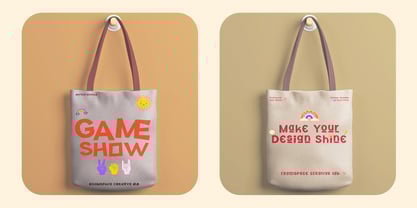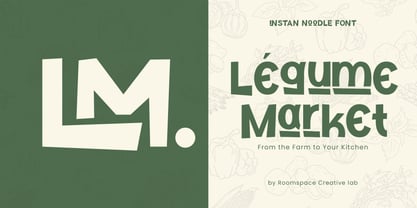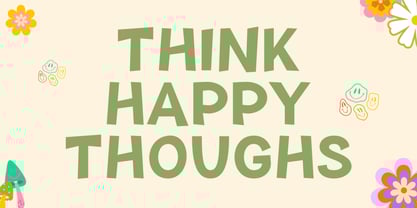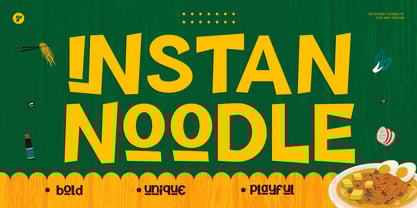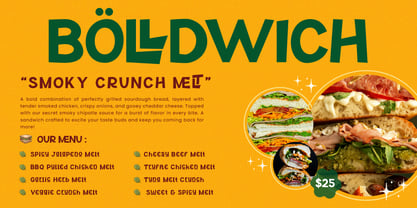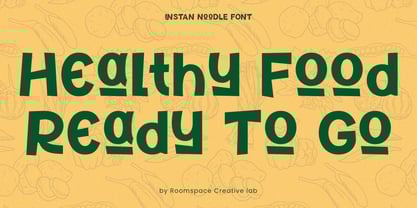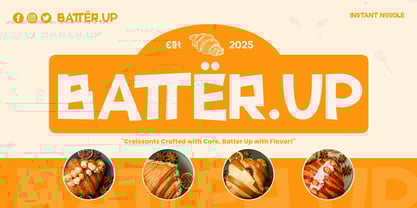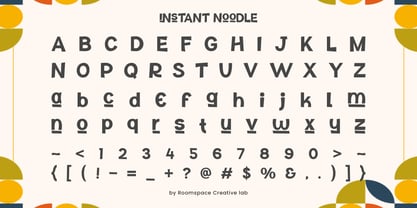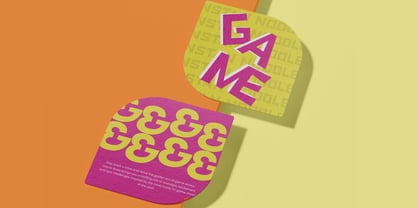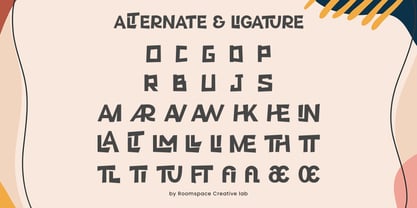
Yellow Ramen
por Jafar07
La familia tipográfica Yellow Ramen fue diseñada por Bakhrudin Ja'far y publicada por Jafar07. Yellow Ramen contiene 2 estilos y opciones de paquete familiar. Más información sobre esta familia
Yellow Ramen is a modern decorative font that combines playfulness with bold creativity. Perfectly hand-drawn with a quirky and unique style, this font captures a fun, vibrant aesthetic that's ideal for adding personality to your designs. Whether you're creating for branding, logos, websites, or food packaging, Yellow Ramen brings a fresh and youthful vibe to every project.
Designed to stand out, Yellow Ramen is not just a playful font it's a versatile tool for designers who want to make a statement. Use it as a quote font to inspire or as a branding font to add a bold and unique character to your visuals. Its cursive, fancy, and cute elements make it equally at home in hand lettered artwork or elegant designs.
Whether you're crafting for hipster vibes, designing modern logos, or working on a food project, Yellow Ramen adapts beautifully. Its charm also works seamlessly for love-inspired creations, website headings, or playful lettering designs. This brush font is all about flexibility, letting you explore endless possibilities with its creative versatility.
Diseñadores: Bakhrudin Ja'far
Fundición: Jafar07
A little from my personal design & background: My name is Bakhrudin Ja'far, I live in Malang, Indonesia. I am currently completing my degree in visual communication design and I have worked as a lettering artist and logo designer for many years. I finally started my studio called roocspace creative lab (jafar07) Studio a few months ago and with my team made my letters into typography.